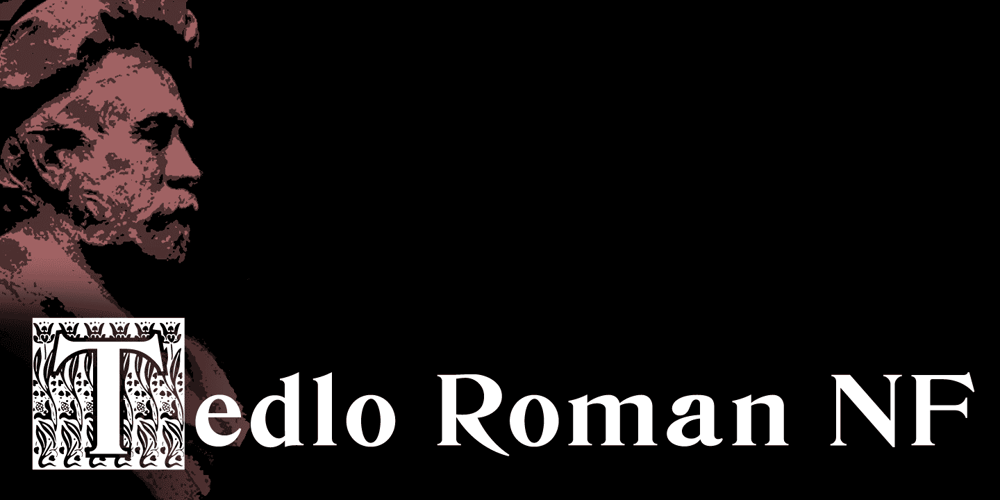
Tedlo Roman NF
Tedlo Roman NF Font Family was designed by Nick Curtis and published by Nick’s Fonts. Tedlo Roman NF contains 3 styles and family package options. A ubiquitous offering from the late 1800s, Devinne Roman, provided the pattern for this friendly face. A font of decorative A-Z initials is included in the package. Both versions of the primary font support the Latin 1252, Central European 1250, Turkish 1254 and Baltic 1257 codepages.